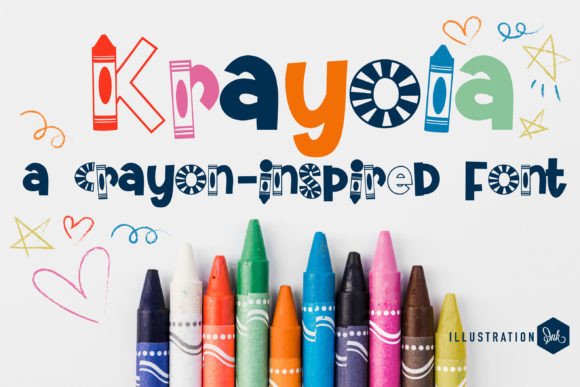
Dive into the captivating world of Krayola, a display font brimming with childlike charm and whimsical details. Inspired by the beloved school supplies that ignite young imaginations, this font is a vibrant fusion of creativity and nostalgia.
Unleash your inner child with Krayola's playful strokes and intricate flourishes. Each letter dances across the page like a crayon scribble, evoking memories of childhood dreams and limitless possibilities. Whether you're crafting invitations for a birthday bash or designing whimsical posters for the nursery, Krayola's playful spirit will add a touch of magic to your creations.
Beyond its irresistible charm, Krayola boasts a versatile nature that adapts effortlessly to any project. Use it to craft eye-catching headlines that grab attention or weave it into enchanting stories that transport readers to a realm of wonder. The possibilities are as endless as a child's imagination.
Imagination knows no bounds with Krayola. Its enchanting details and playful curves spark creativity and inspire stories that leap off the page. Whether you're a seasoned writer or a budding artist, Krayola will ignite your imagination and empower you to create projects that resonate with your audience.